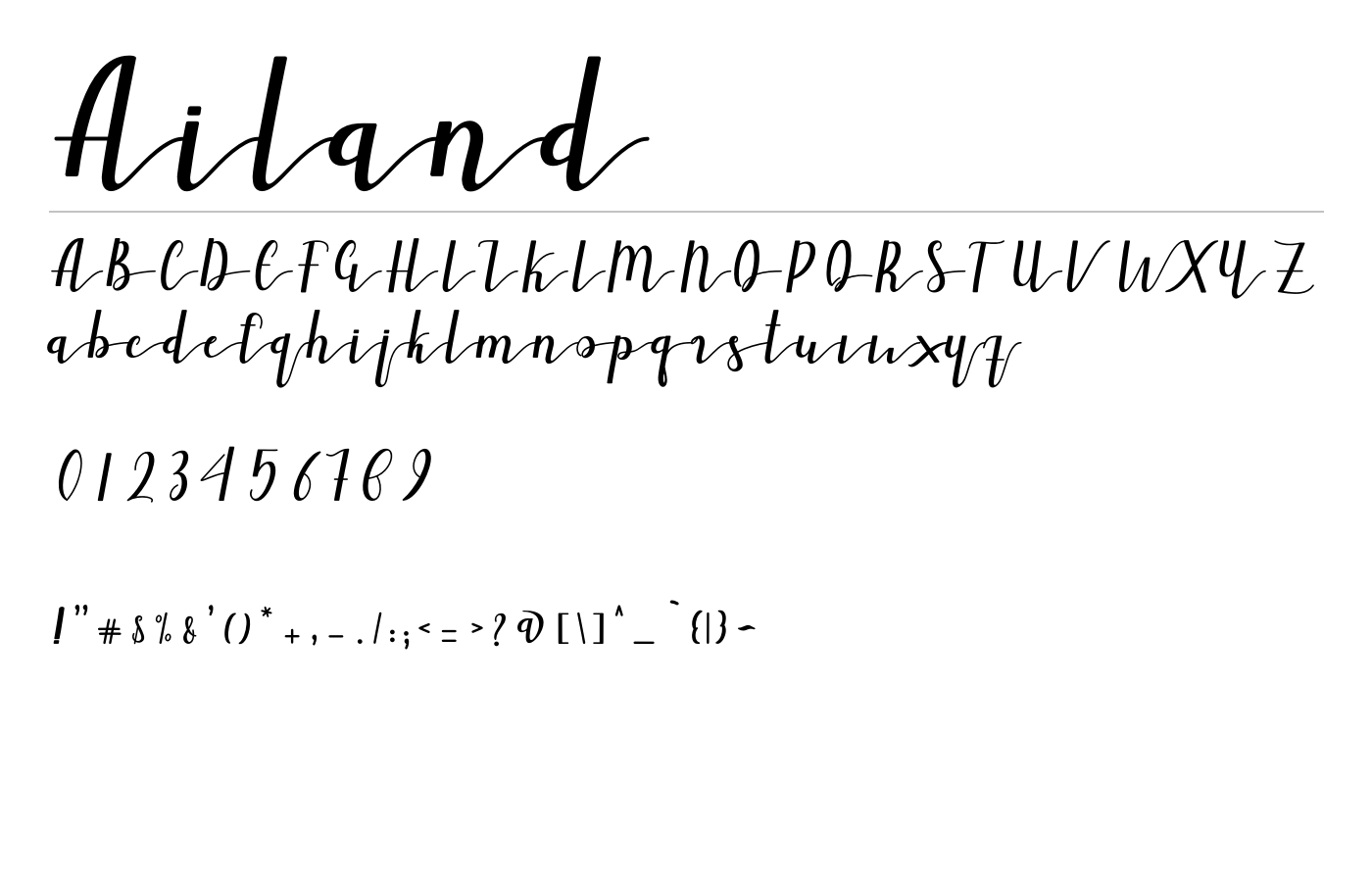
Ailand is a graceful and elegant script font featuring tall, slender letterforms with smooth, flowing strokes and moderate contrast. Its delicate, handwritten style conveys a warm, personal touch ideal for invitations, branding, and feminine design projects, offering a sophisticated yet approachable feel. Perfect for creative headlines and decorative text, Ailand adds charm and personality without sacrificing readability.
Ailand Font